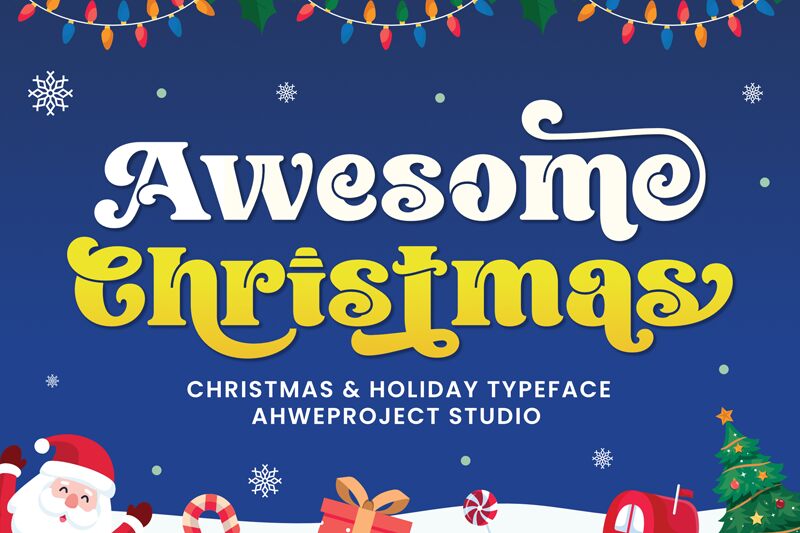
Awesome Christmas font by Ahweproject is a free font designed to encapsulate the festive spirit. Its holiday charm is conveyed through an exaggerated presence suitable for posters, invitations, and other holiday-themed design projects. This font carries an ornate style balanced between a classic-inspired calligraphy and modern letterforms to bring out an emotionally uplifting atmosphere.
Awesome Christmas is great for use in greeting card designs, typography gift wrapping, advent calendars, invitations, posters, and any other Christmas and holiday projects. Design eye-catching email newsletter headers, in-store banners, window displays, and holiday marketing materials.